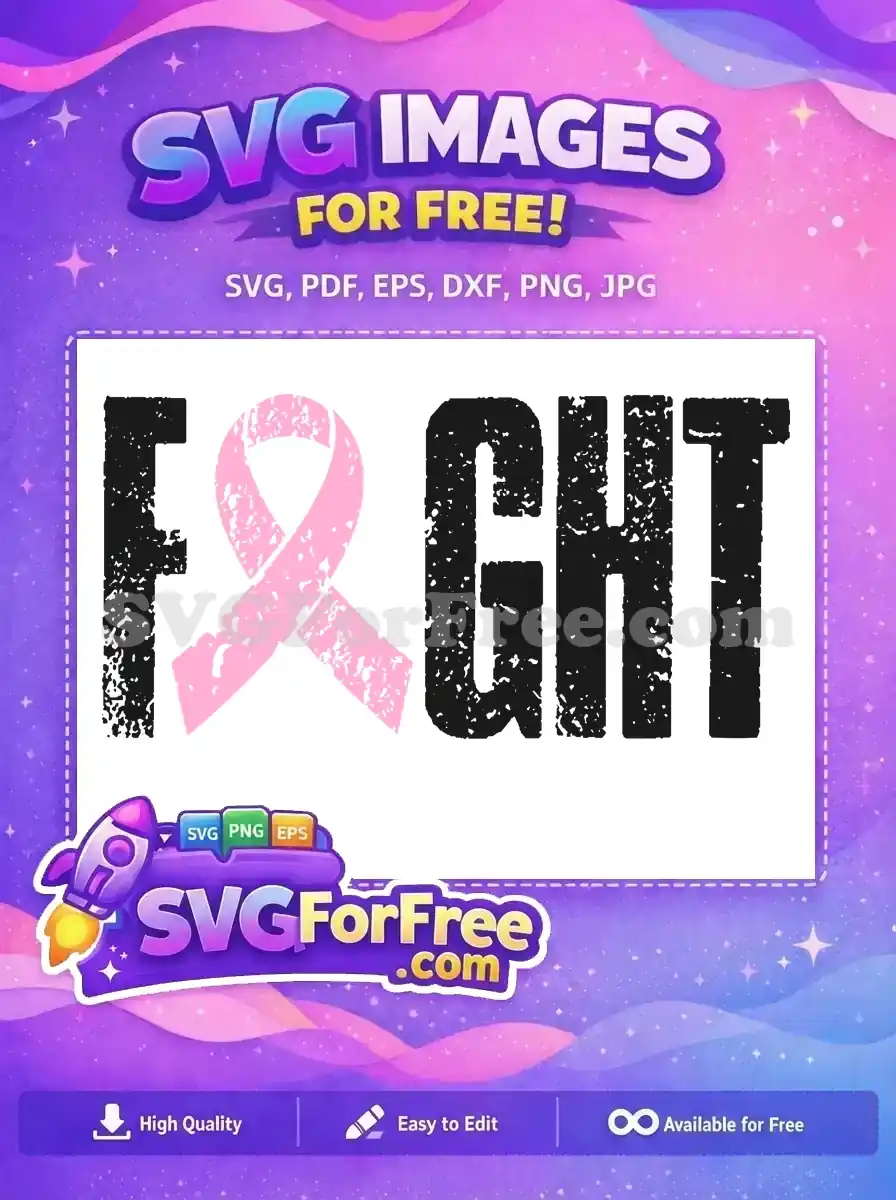
Free Fight Distressed Font Free Pink Awareness Ribbon Quotes Free SVG – Instant Download
Download this powerful free design, a distressed ‘FIGHT’ with a pink ribbon for breast cancer awareness. Make a statement.
Free Fight Distressed Font Free Pink Awareness Ribbon Quotes Free SVG